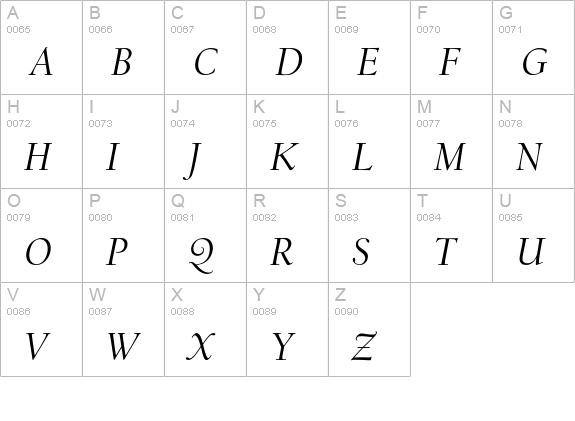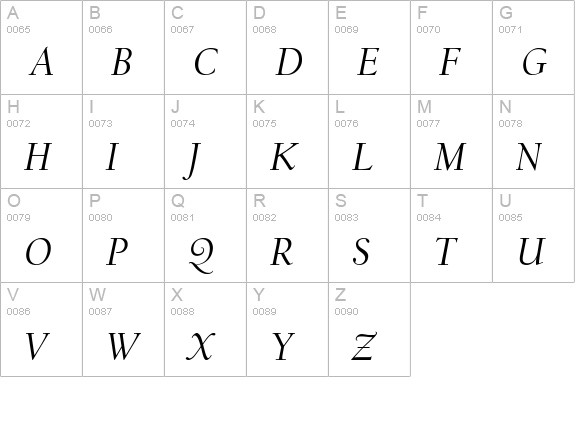
CalifornianMiddle-Italic Font Details
CalifornianMiddle-Italic is a distinctive, italic variant in the CalifornianMiddle typeface family \xE2\x80\x94 well suited to design and typography projects.
Californian Middle-Italic font exudes elegance and sophistication with its sleek and streamlined design. This font strikes the perfect balance between traditional and modern elements, making it versatile for a wide range of design projects. Its slanted and italicized strokes add a touch of flair and dynamism to any text, making it stand out with a unique charm. What makes Californian Middle-Italic font even more appealing is that it is available for free download at FontsMarket.com. Now, you can enhance your projects with this exquisite font without any extra cost. Embrace the beauty and versatility of Californian Middle-Italic font today and elevate your designs to a whole new level.